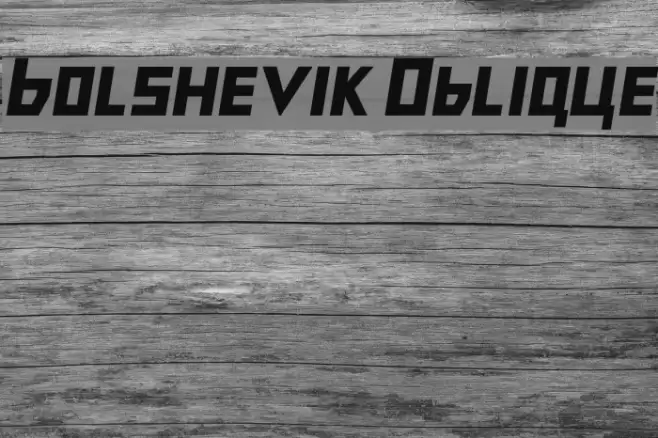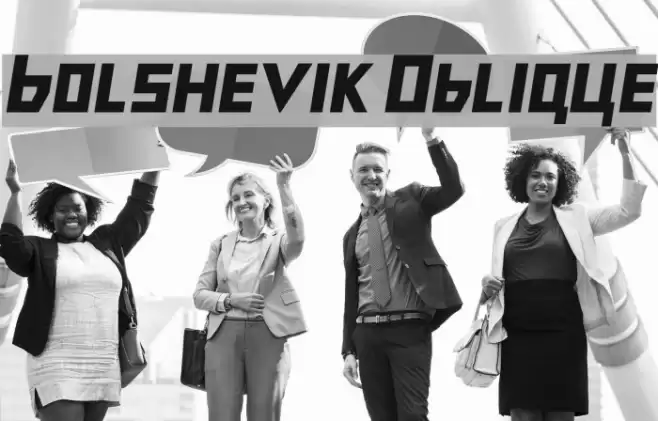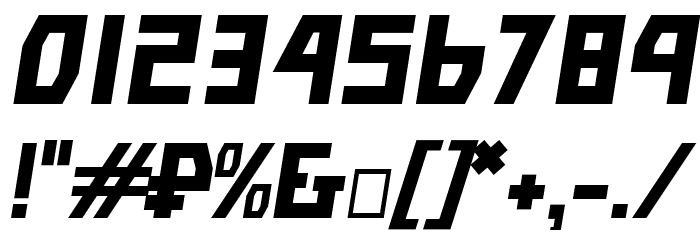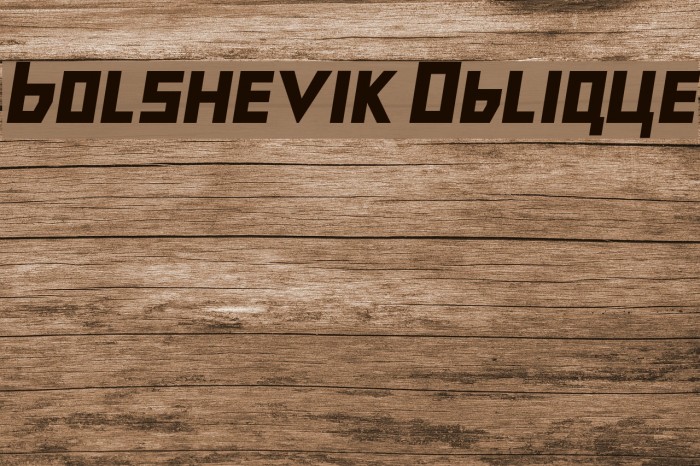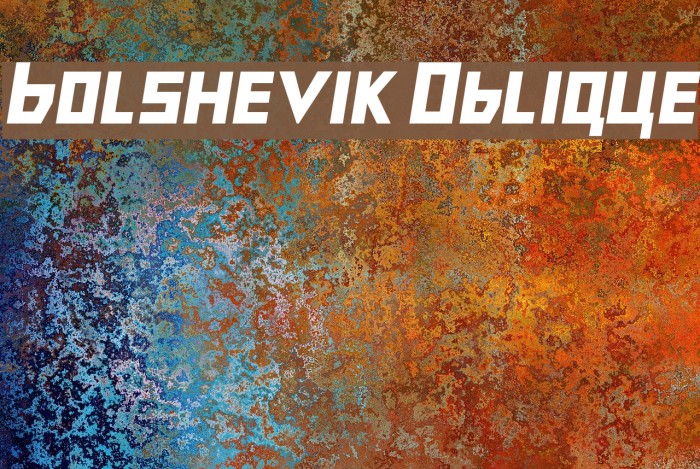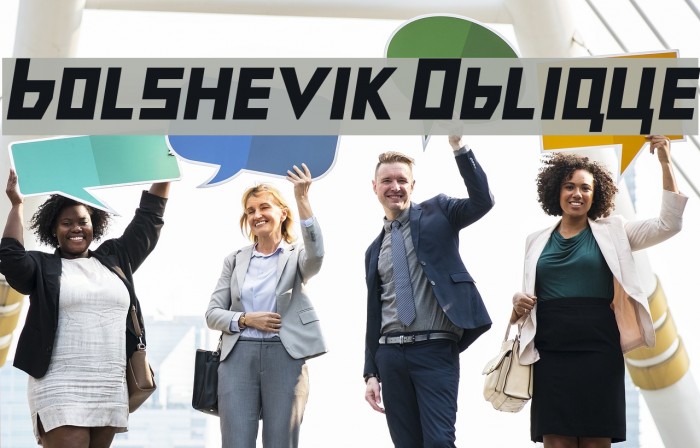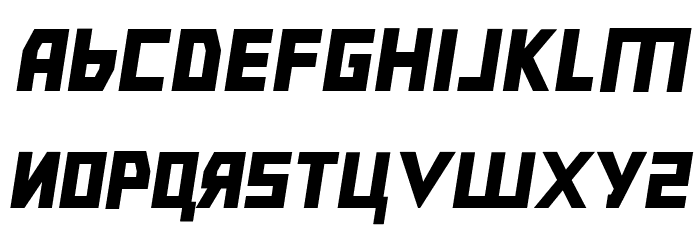
Bolshevik Oblique Font
Bolshevik Oblique Description
This font features a bold and dynamic style with a distinct oblique slant, giving it a sense of movement and urgency. The characters are blocky and geometric, with sharp angles and a uniform stroke width that conveys strength and stability. The uppercase and lowercase letters maintain a consistent design, while the numerals and special characters integrate seamlessly into the overall aesthetic. The font's design is reminiscent of constructivist and industrial themes, making it suitable for projects that require a strong, impactful visual presence.
A bold, oblique font with a geometric, industrial style from Uncategorized fonts.
- Proposed Projects: Ideal for posters, branding, and editorial design that require a bold, impactful look.